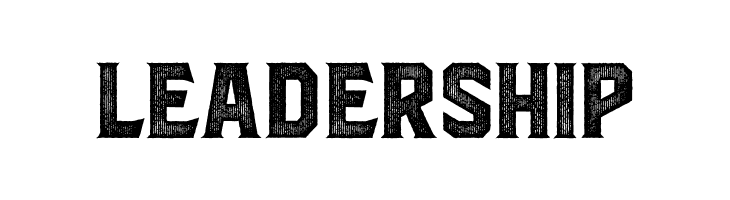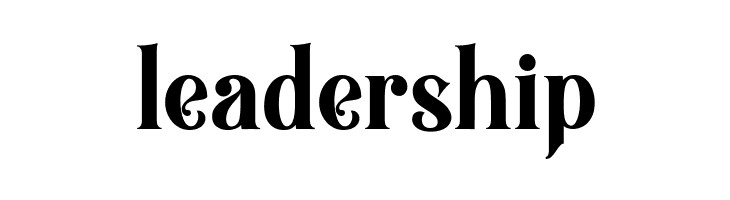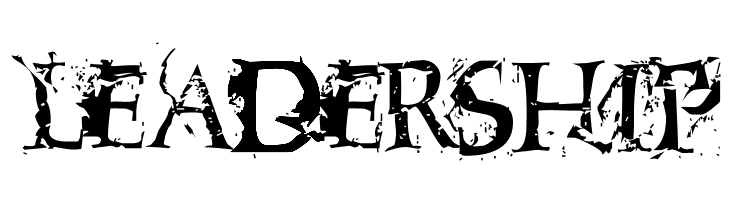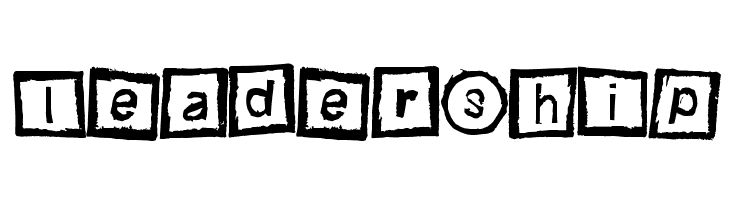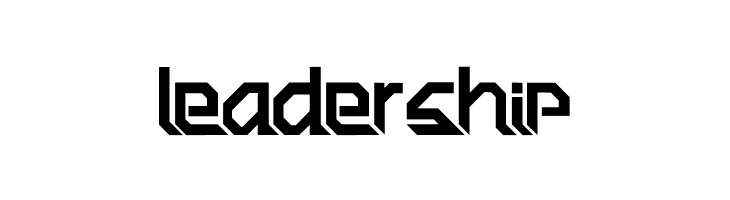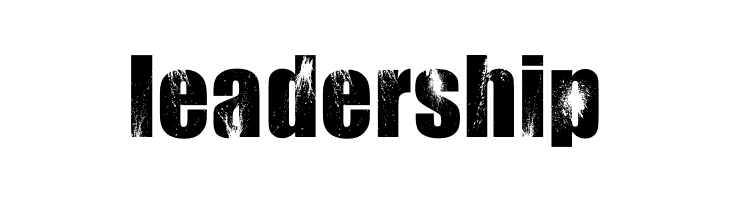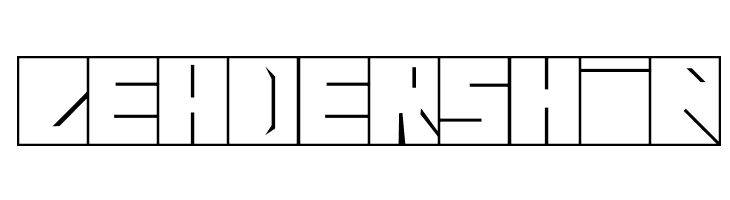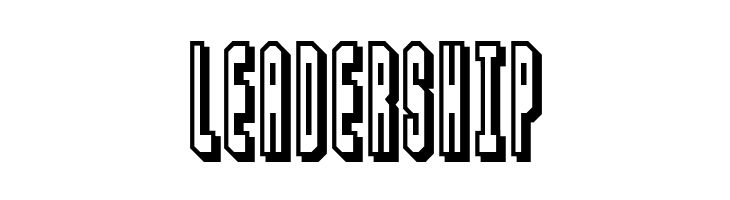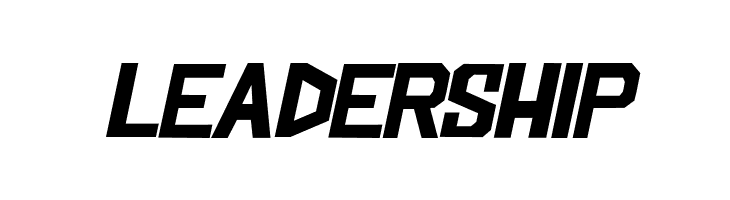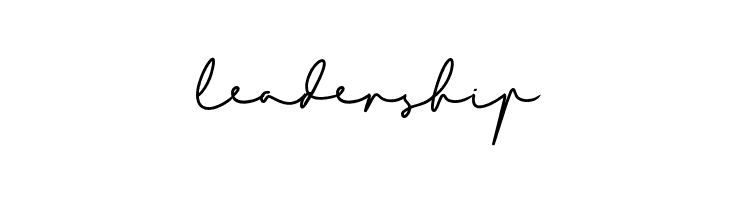
A bold, high-contrast serif font with elegant curves and dramatic strokes.
A bold, textured font with a rugged, vintage appearance.
A bold, geometric inline font with a strong, commanding presence.
A bold, expressive handwritten font with playful splatter embellishments.
A dynamic, expressive font with flowing, cursive-like strokes and unique letterforms.
A fluid, cursive script font with elegant strokes and a natural handwriting style.
A dynamic handwritten font with playful, expressive strokes.
A distressed, grunge-style font with a textured, weathered appearance.
A bold, narrow, and modern font with sharp angles and a futuristic look.
A sophisticated handwritten script with fluid, cursive strokes.
A bold, medieval-inspired font with sharp, angular edges and a hand-crafted look.
A bold, geometric font with a three-dimensional outline, perfect for striking headlines.
A bold, textured script font with a vintage, handcrafted feel.
A bold, playful font with characters resembling ink splatters.
A bold, 3D block-style font with a tilted, dynamic appearance.
A bold, geometric font with angular, blocky characters.
A bold, italicized font with angular, forward-leaning characters.
A bold, geometric font with a modular, futuristic design.
A bold, geometric typeface with a modern, industrial style.
A dynamic, brush-style script font with expressive, hand-drawn strokes.
A bold, distressed font with a gritty, textured appearance.
A modern, geometric sans-serif font with consistent stroke width and balanced proportions.
A modern, geometric font with clean lines and an open feel.
A playful, rounded font with bold, uniform strokes and a friendly appearance.
A playful, rounded font with smooth curves and consistent stroke width.